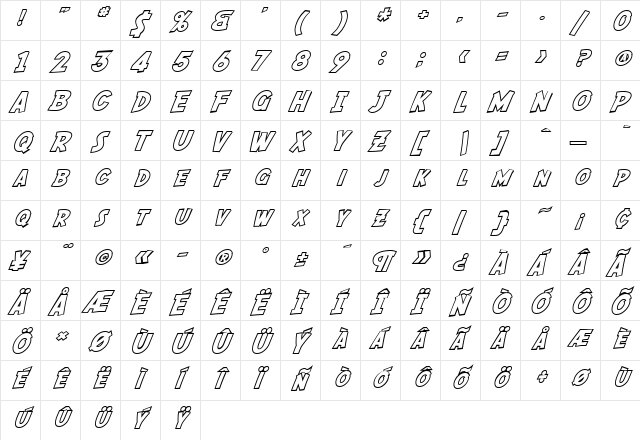
SF Fedora Outline Regular
Design Context for SF Fedora Outline Typeface
SF Fedora Outline is built around its visual character rather than neutral utility — its distinctive forms are designed to make an impression at display sizes.
Font Pairing: Pair with a clean neutral sans-serif for body copy to let SF Fedora Outline's character lead without overwhelming the composition.
Pro Tip: Treat SF Fedora Outline as the centrepiece of your typographic hierarchy. One strong heading set in a decorative face can carry an entire layout.